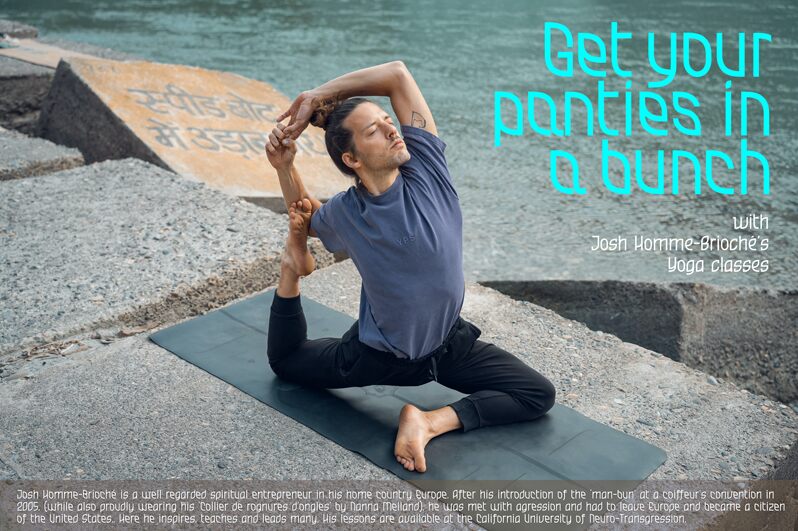
I made a word mark for a (new age hippy) "center for personal development and growth" a while ago, using the shape of a water droplet they had in their logo. Last week, I tried to make an entire font that was similar, with a leaf shape instead of a water drop.
I started with the regular, which turned out very irregular, and decided to make two more versions; one leaning to the left and one leaning to the right. (I named them bold and italic, because using left and right, Illustrator wouldn't see them as being of the same font family)
I'm not a big fan of that macrochaotic organic hippy style, but I decided to publish it anyway, there's always a couple of people out there who can make good use of it, whether it's oil companies trying to greenwash their filth, or Extinction Rebellion fighting them. I'm supporting the latter btw :)
Nutteloze, veel te uitgebreide achtergrond bij deze letter: ik heb eens een woordmerk bij een logo gemaakt voor een of ander hippiecentrum waar m'n ex werkt. (Omdat het belangrijk is je ex te vriend te houden, en helemaal wanneer ze de moeder van de leukste kinderen ter wereld is. En dat zijn die van mij, uiteraard.) Daarbij maakte ik gebruik van de druppelvorm van hun logo. Werkte goed, zag er heel macrochaotisch en organisch uit. Ik houd absoluut niet van die stijl, van die veganistische slager-achtige hippiedrollen van letters. Maar allez, het zijn doorgaans aardige mensen die het beste met ons allen voor hebben. Dus ik wilde eens proberen of ik er een heel font van kon maken, en dan zonder die druppel; met een eenvoudiger en symmetrischer bladvorm. Nou, dat is deze hippiedrol van een letter geworden. Ik ga straks nog proberen of het beter werkt wanneer de letters allemaal dezelfde diagonaal volgen (hoewel ik de chaos bij deze versie ook wel grappig vind), maar ik moet eerst Siyah uitlaten, het hondje waar ik ik al een paar maanden op pas omdat m'n oude moeke haar heup gebroken heeft en moet revalideren. Want ze moet heel nodig plassen.